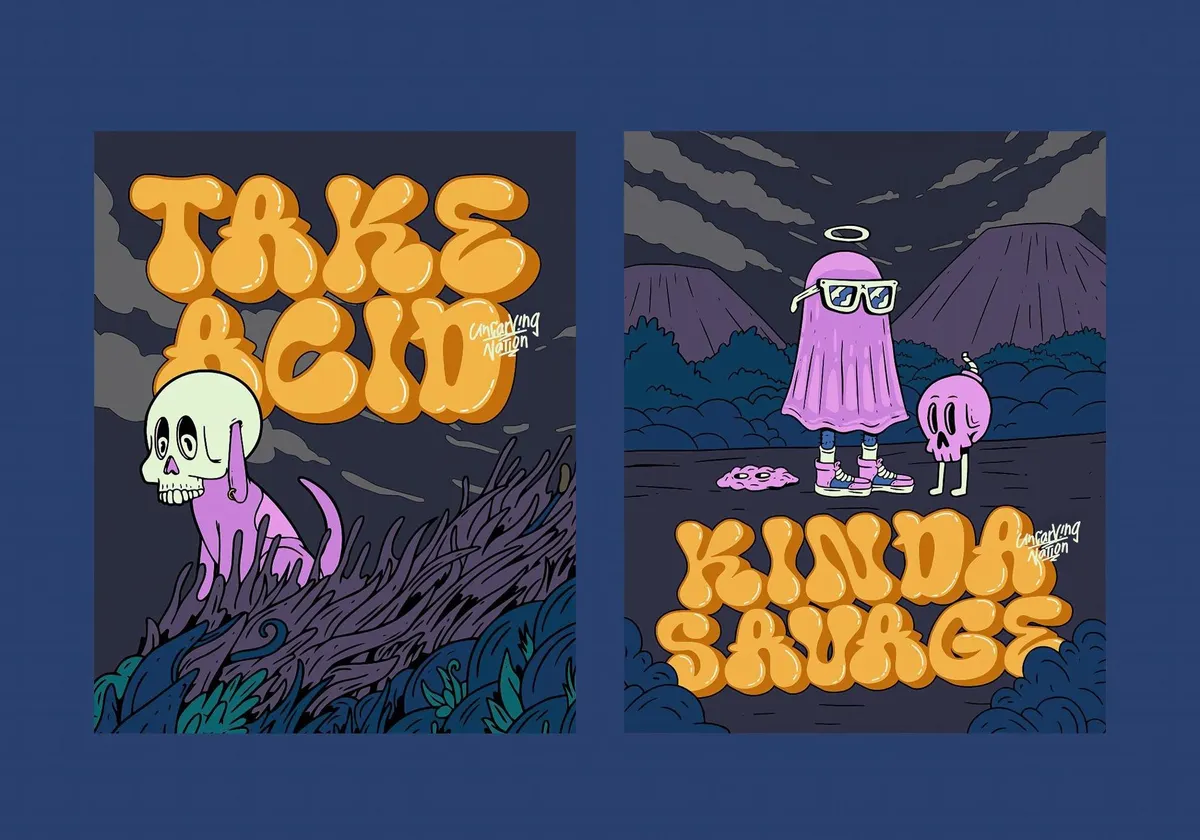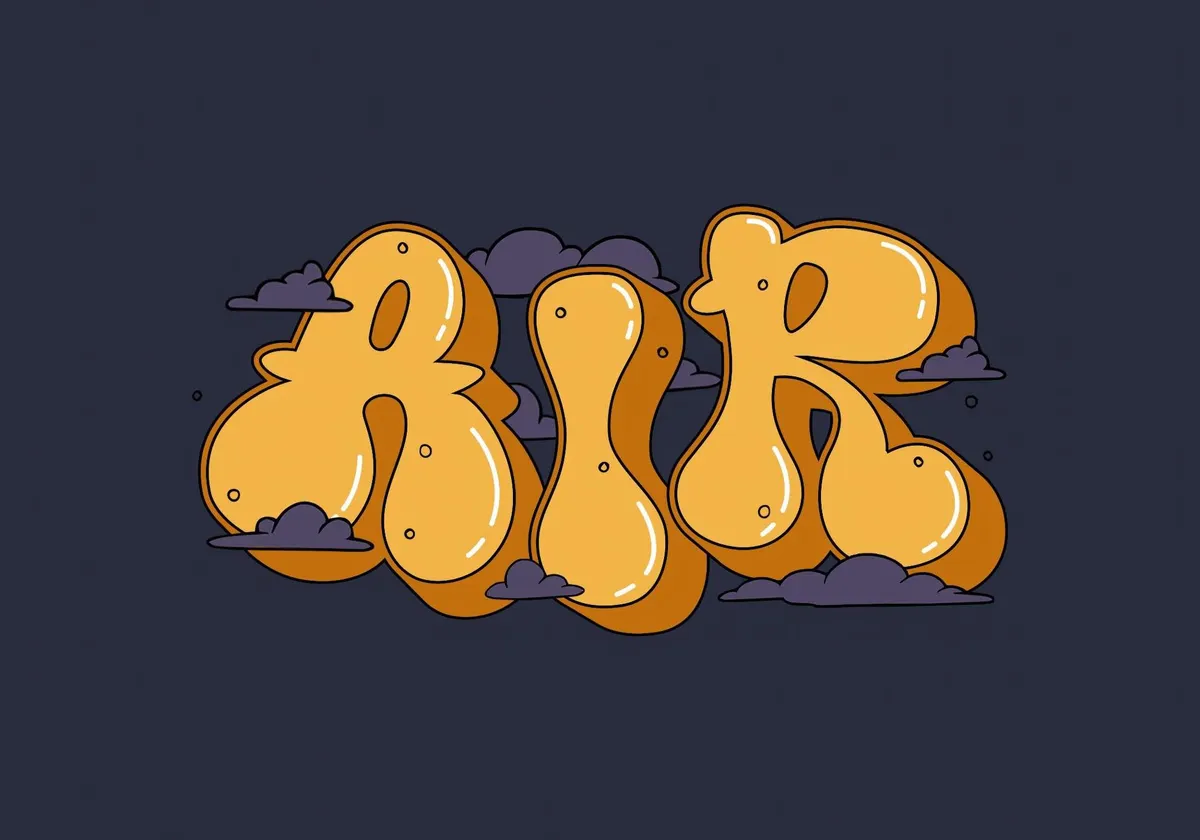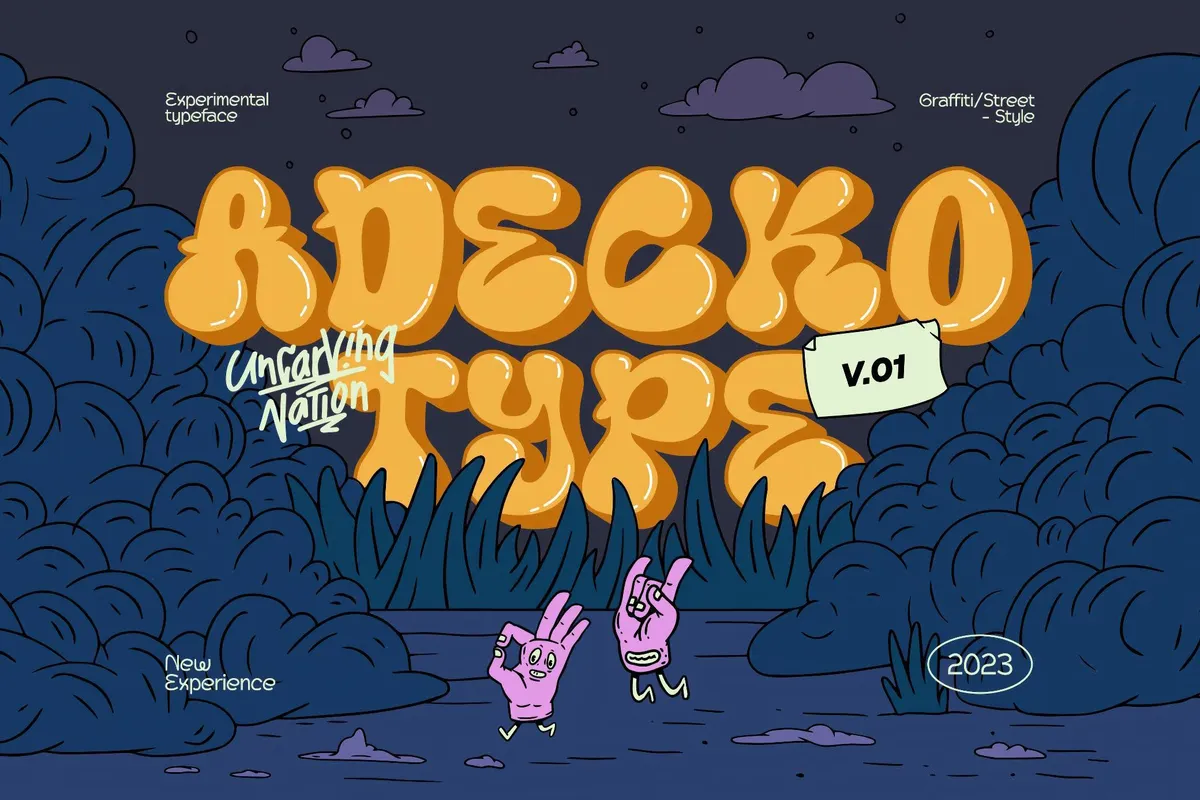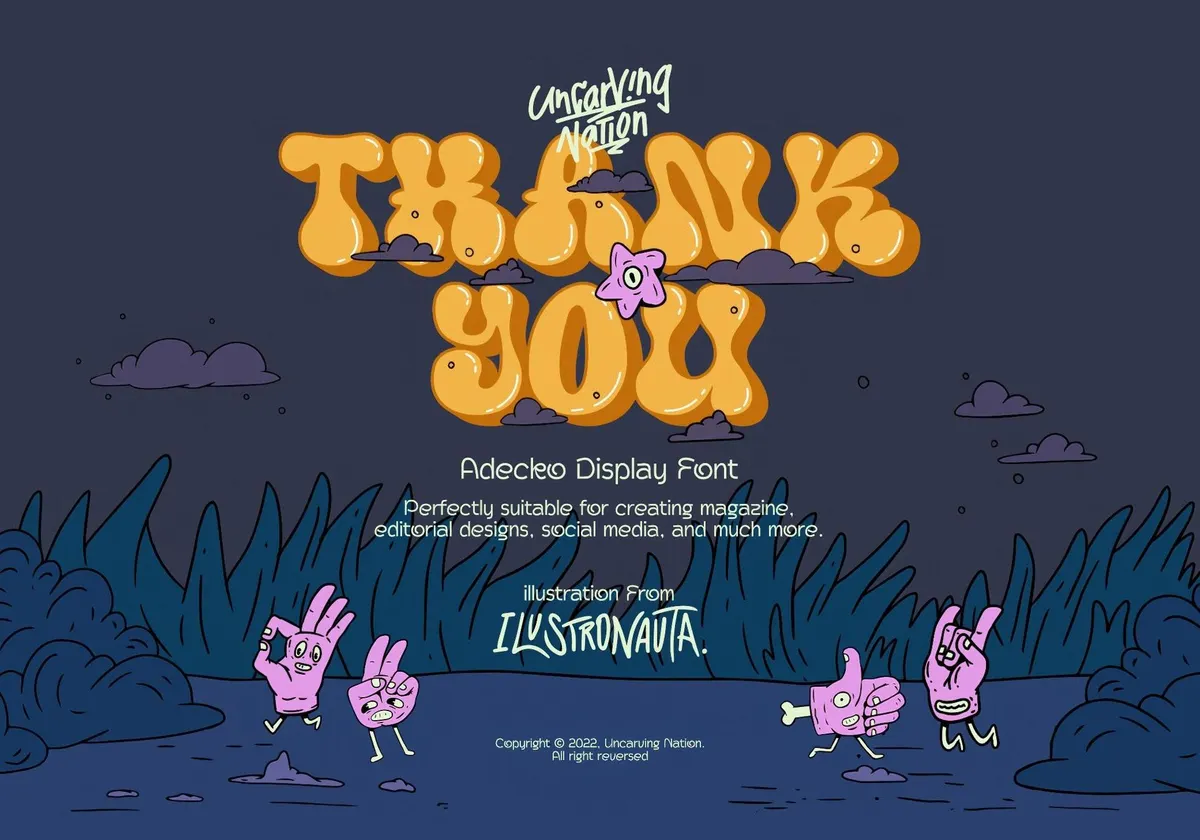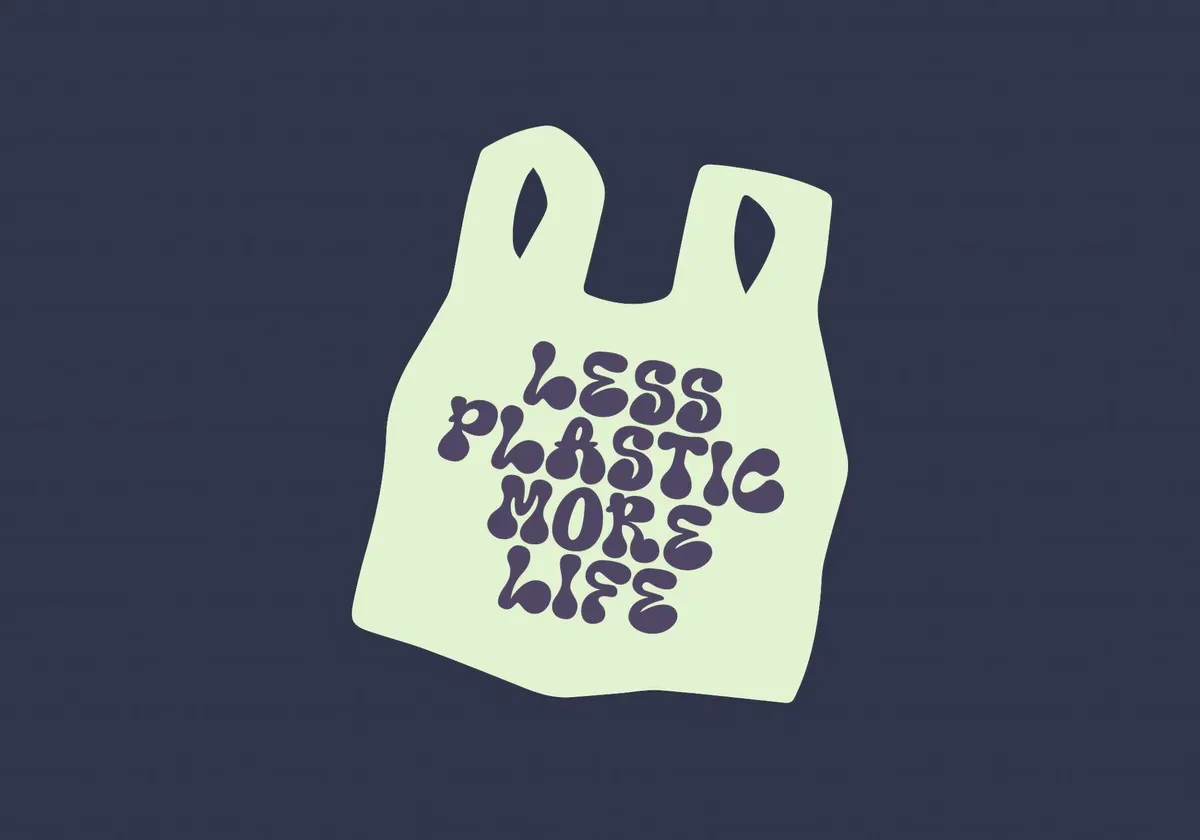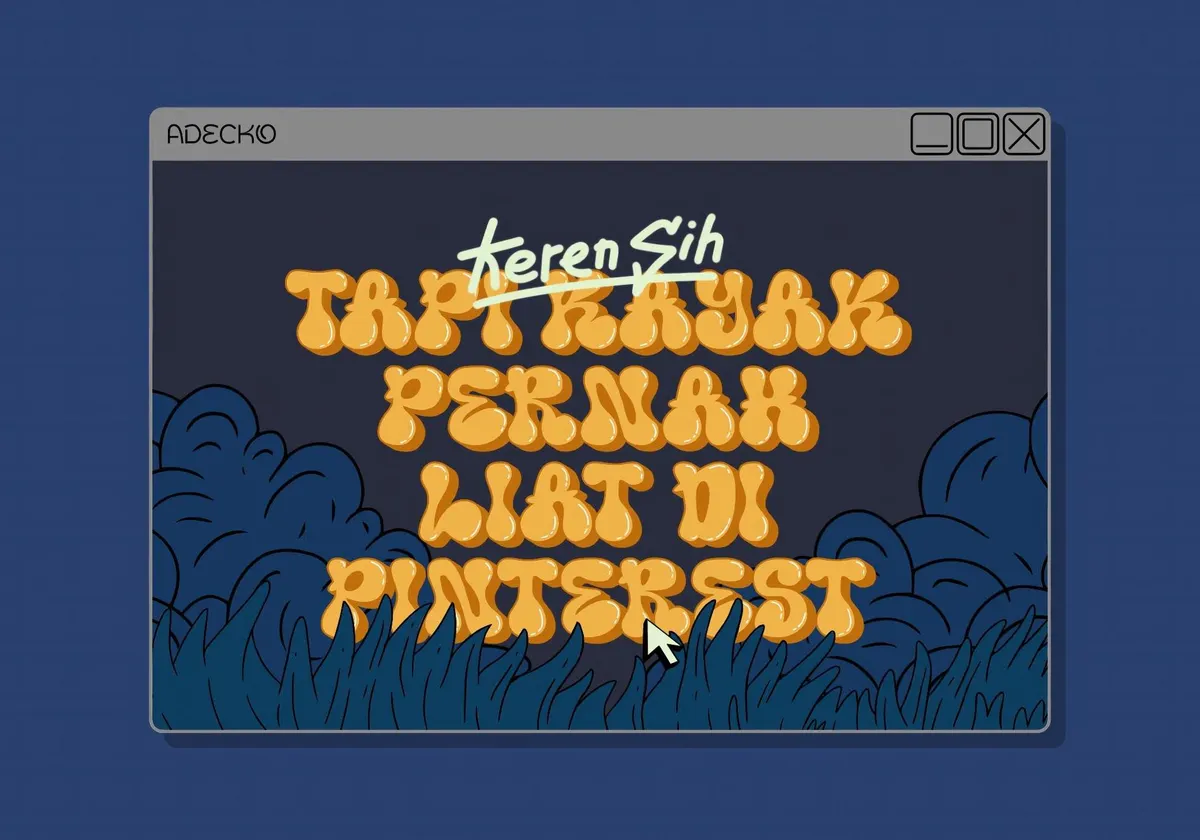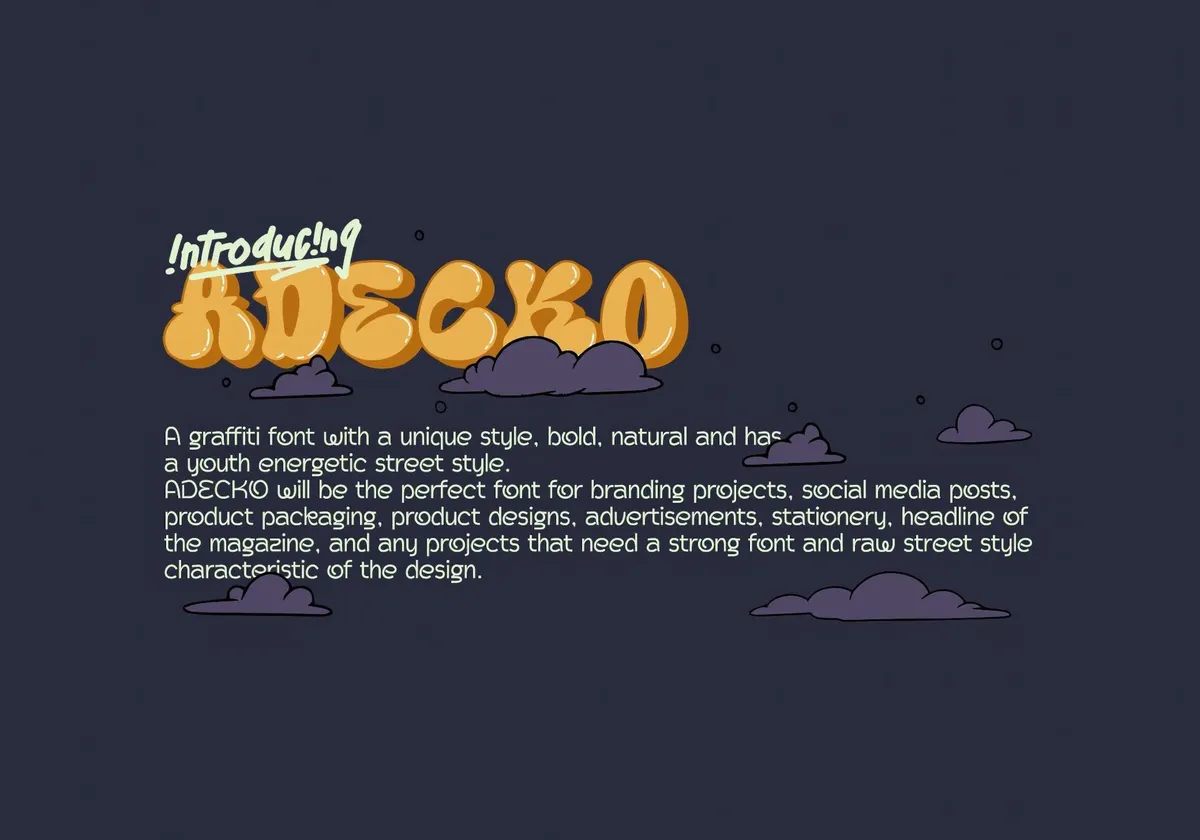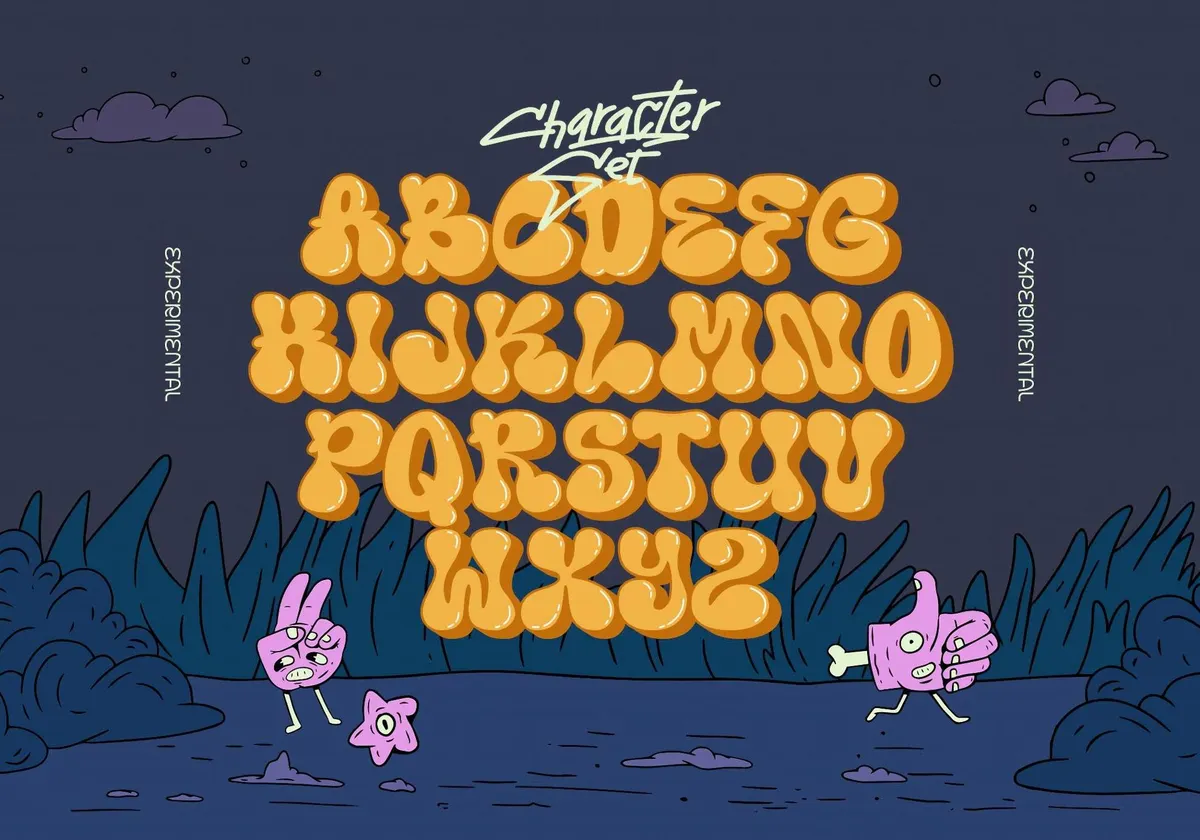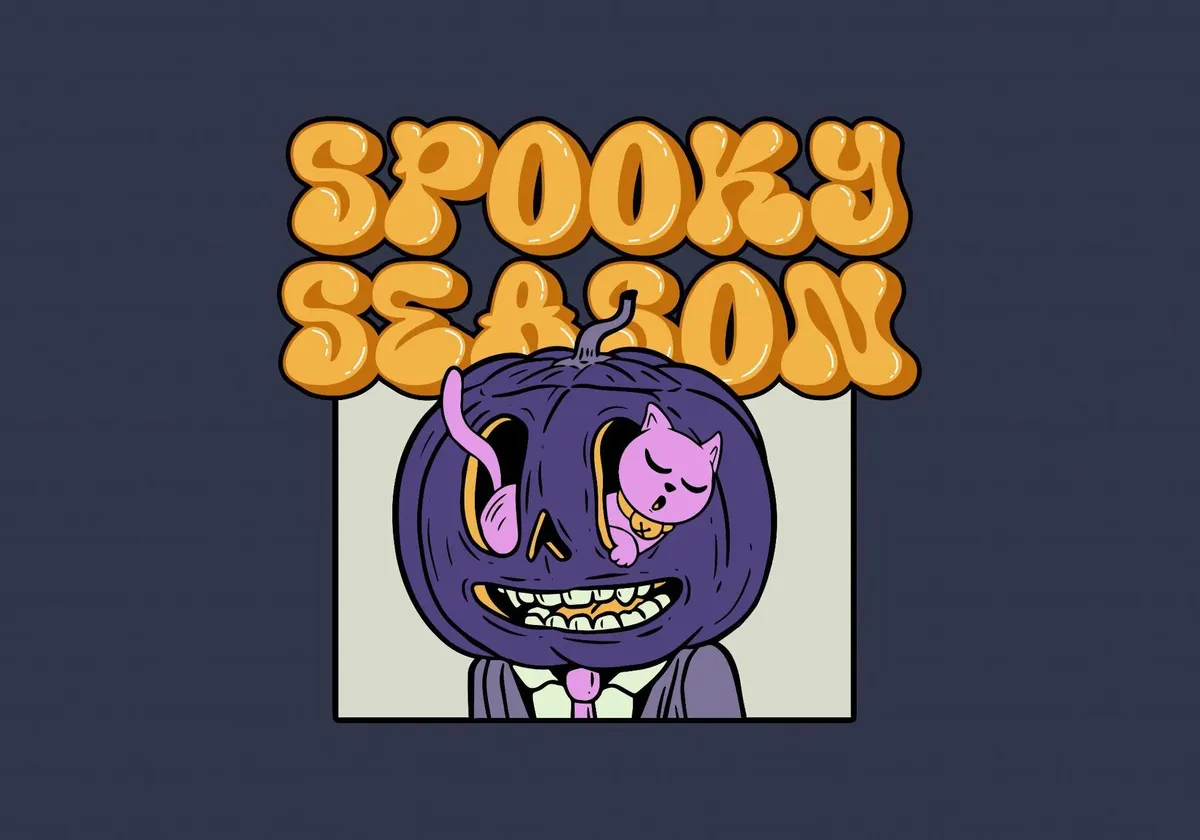
Adecko — Graffiti Display Font
Adecko
Get ready to channel your inner Cartoon Network kid with a font that feels straight out of a 2000s animated series. You can even picture it alongside the chaotic adventures of “Ed, Edd n Eddy” or the mischief of “Courage the Cowardly Dog.”
Adecko is bold, quirky, and perfect for bringing that wacky, larger-than-life energy to your projects. It is packed with bubbly uppercase letters that look like they’ve been carved from solid, gooey graffiti. No extra characters, punctuation, or numbers, but do you really care? It’s got the punch you’d want for projects needing street-style vibes, funky posters, store branding, apparel, stationery collections, and more.